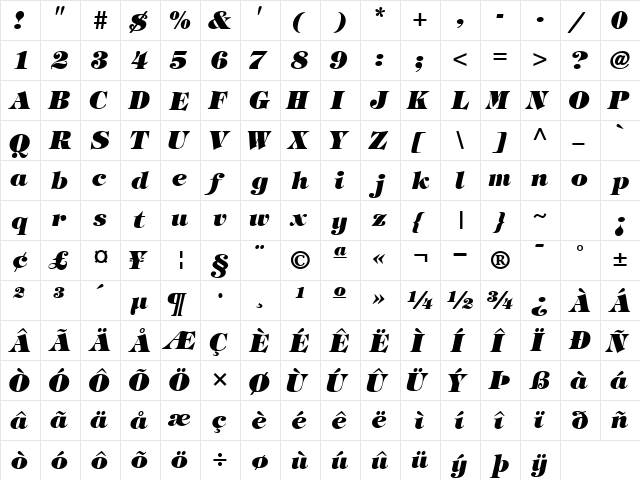
SophisticateUltraSSK Italic Font Preview
SophisticateUltraSSK Italic
SophisticateUltraSSK Italic Font Details
Design Context for SophisticateUltraSSK Typeface
SophisticateUltraSSK offers clean, dependable letterforms without strong stylistic allegiance, making it a practical choice for designers who need flexibility. The slanted form adds forward momentum and visual energy.